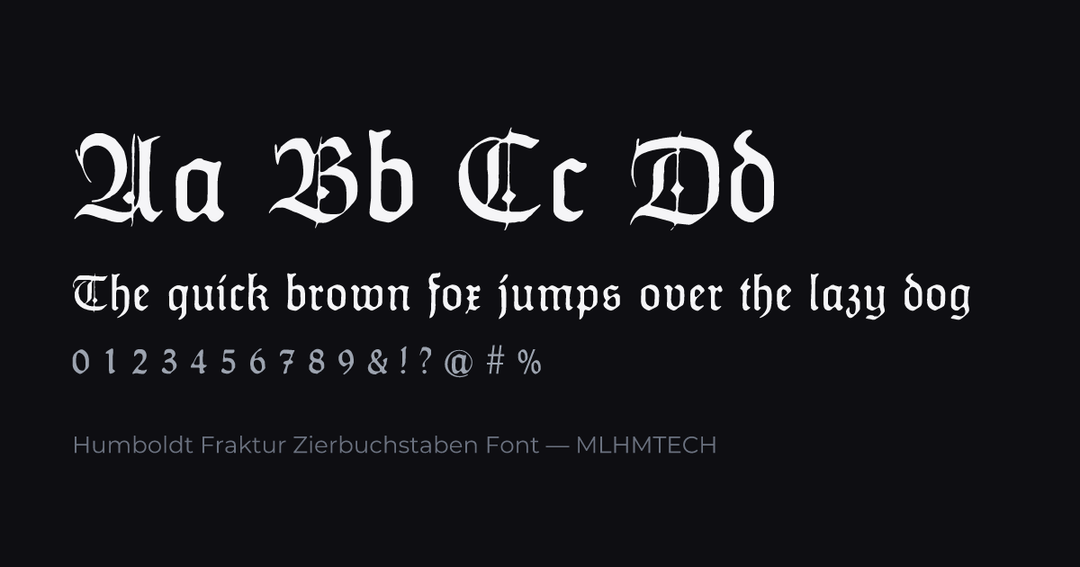
Humboldt Fraktur Zierbuchstaben Font
A decorative Fraktur blackletter font with ornamental capitals, ideal for thumbnails, posters, and vintage-style branding. Includes a single TTF file for easy installation.
Humboldt Fraktur Zierbuchstaben is a blackletter display font in the Fraktur tradition, featuring ornate capital letters and a historic German aesthetic. The 'Zierbuchstaben' (ornamental letters) give headlines a hand-crafted, old-world feel that stands out in thumbnails and title cards.
This font works best for short, high-impact text such as video titles, event posters, album covers, and gothic or vintage-themed designs. Because it is a decorative typeface, it is not suited for long paragraphs or small body copy.